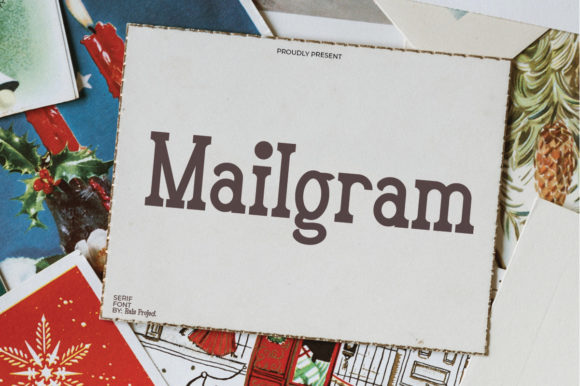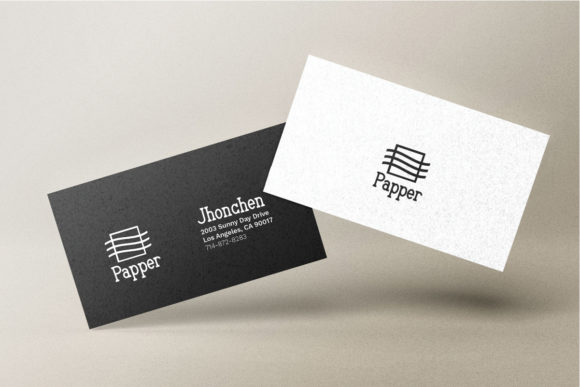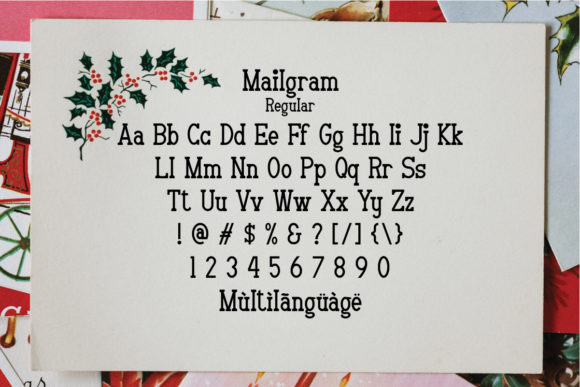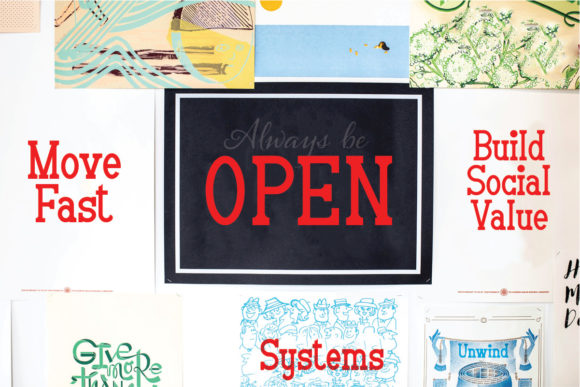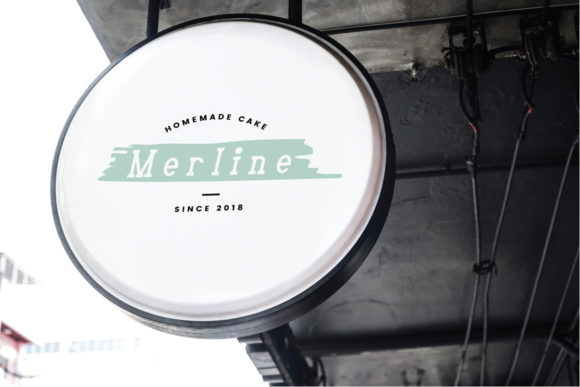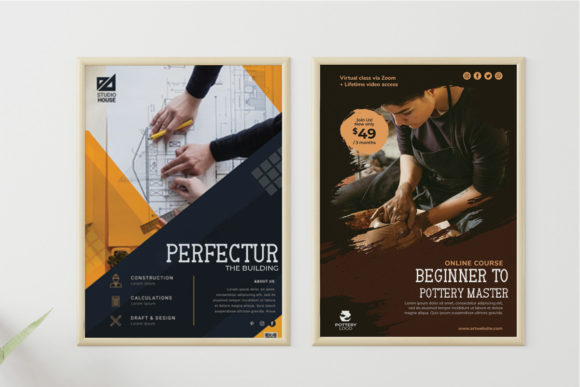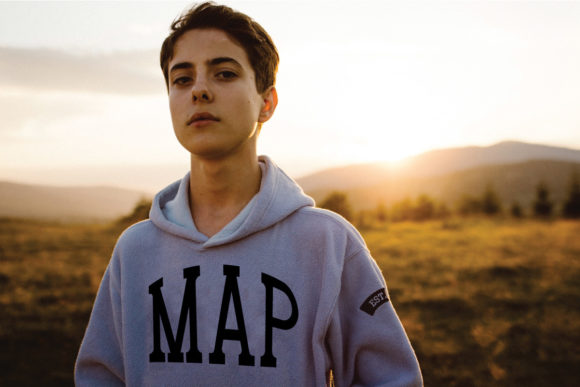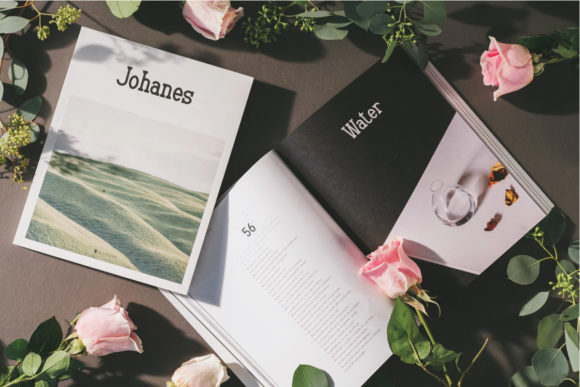
Mailgram
Mailgram: A Cool and Vintage-Styled Slab Serif Font
Mailgram is a distinctive slab serif font that combines a cool, vintage aesthetic with modern usability. This versatile typeface is designed to enhance your creative projects, making them stand out effortlessly.
Key Features of Mailgram
• Cool Design: Features a trendy and appealing look that resonates with vintage styles.
• Vintage Aesthetic: Incorporates classic design elements that evoke nostalgia.
• Slab Serif Structure: Maintains the characteristic thick, rectangular serifs typical of slab serif fonts.
• Versatile Application: Easily matched to a wide range of projects, from print to digital.
• Stand-Out Quality: Designed to elevate your creative ideas and make them visually striking.
Ideal Uses for Mailgram
Mailgram’s unique characteristics make it particularly well-suited for:
• Headlines and titles that need to grab attention
• Branding and logo design for a memorable identity
• Posters and advertisements that require bold typography
• Website headers and digital content aimed at creating an impact
• Packaging design that stands out on the shelf
When incorporating Mailgram into your designs, consider the following tips:
• Use for both large headlines and smaller text blocks to showcase its versatility.
• Experiment with different sizes to highlight the font’s unique vintage details.
• Pair with complementary fonts to create contrast and visual interest.
• Take advantage of its cool nature in projects where you want to convey modernity with a classic touch.
Mailgram is an excellent choice for designers looking to add a cool and vintage-styled slab serif font to their typographic toolkit. Its ability to enhance various design projects makes it stand out in the world of typography. Whether you’re working on logo designs, creating layouts for advertising, or developing branding for various projects, Mailgram offers the perfect blend of vintage charm and modern appeal.
Add Mailgram confidently to your font collection and explore how it can elevate your creative ideas. From striking headlines to impactful branding elements, this font provides the tools to create memorable typography that resonates with audiences.